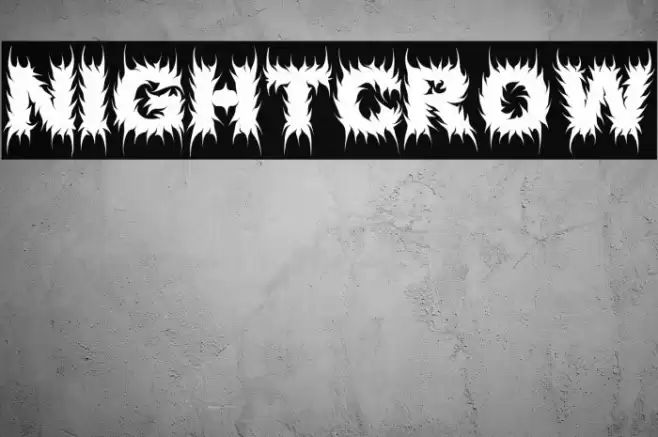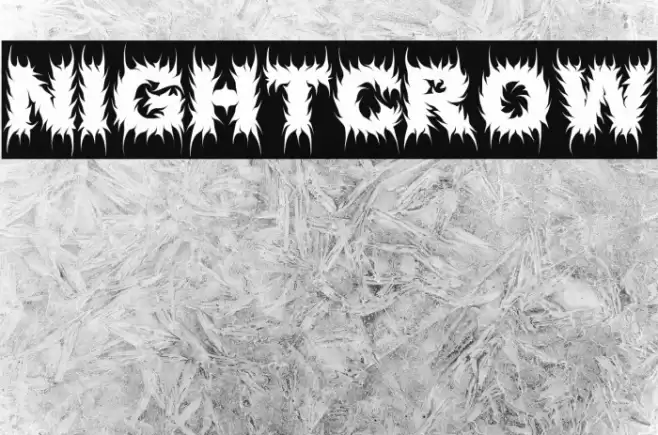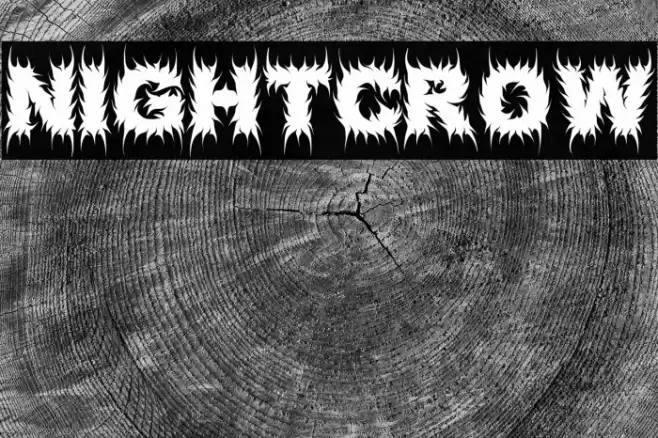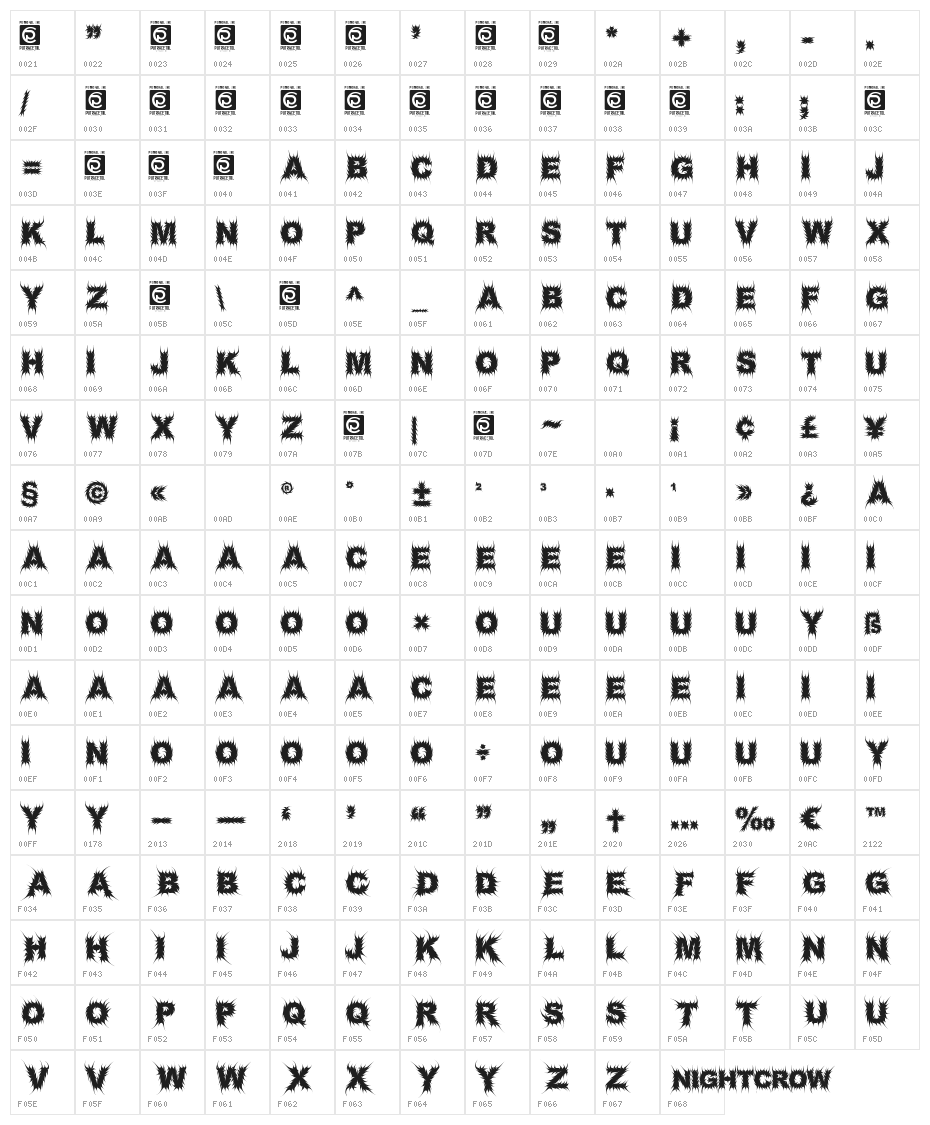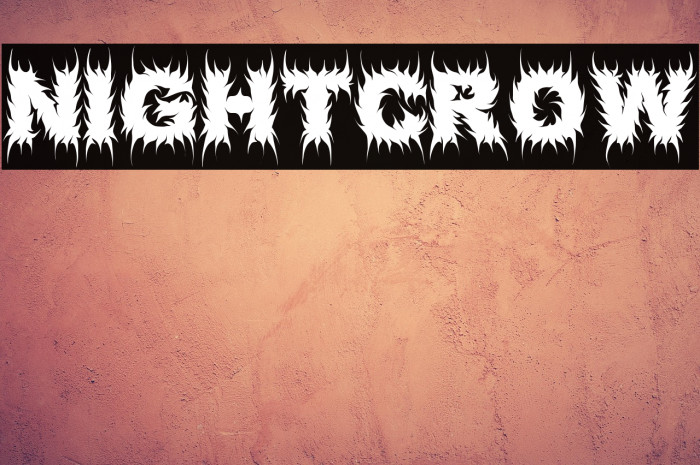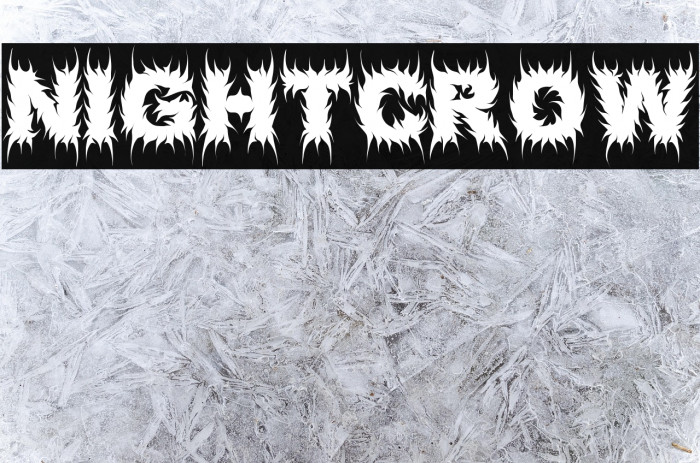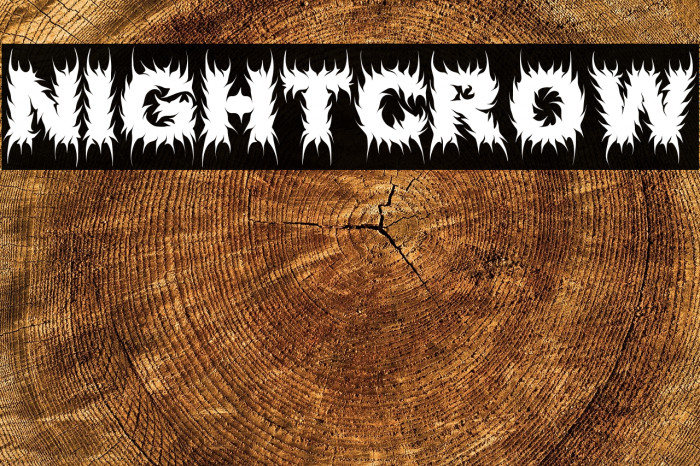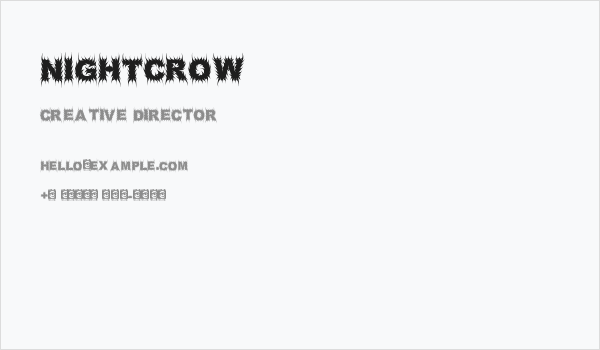
NIGHTCROW Font
NIGHTCROW Description
This font features a bold and aggressive design with sharp, jagged edges that resemble flames or thorns. The uppercase and lowercase letters maintain a consistent style, creating a cohesive and striking appearance. The font's unique and intense look makes it stand out, ideal for projects that require a dramatic and eye-catching typeface. The characters are densely packed, with tight spacing that enhances the font's boldness. The high contrast between the thick and thin strokes adds to its dynamic and energetic feel, making it suitable for impactful headlines or logos.
A bold, jagged font with flame-like edges, perfect for dramatic designs from Regular fonts.
- Proposed Projects: Ideal for band logos, horror movie posters, Halloween-themed events, or any project needing a bold, edgy look.
- Character Spacing: Tight